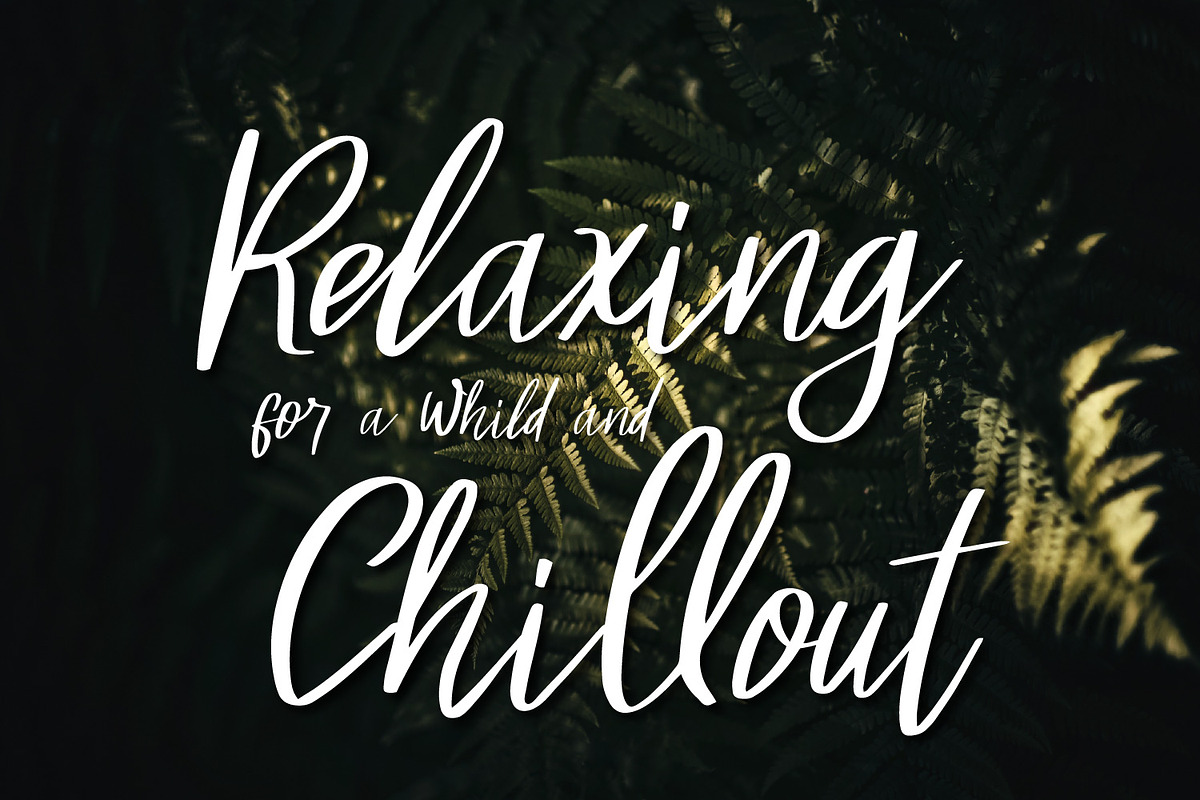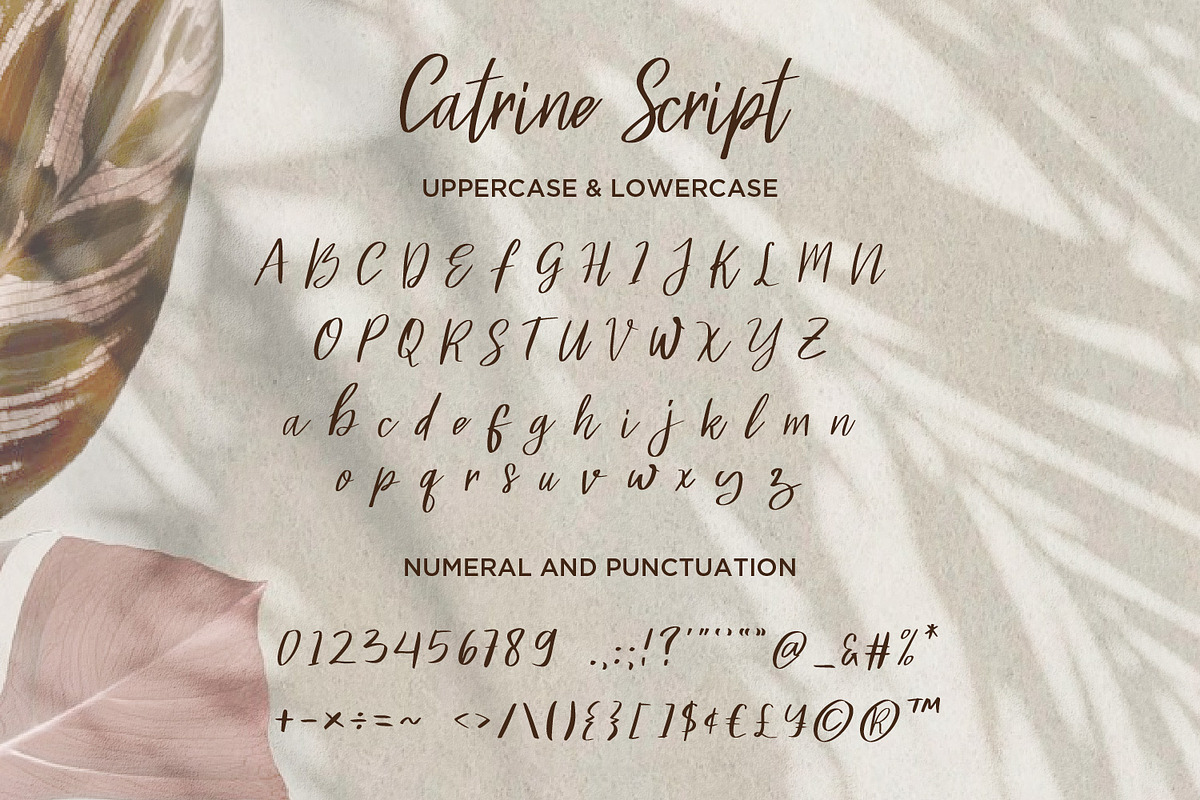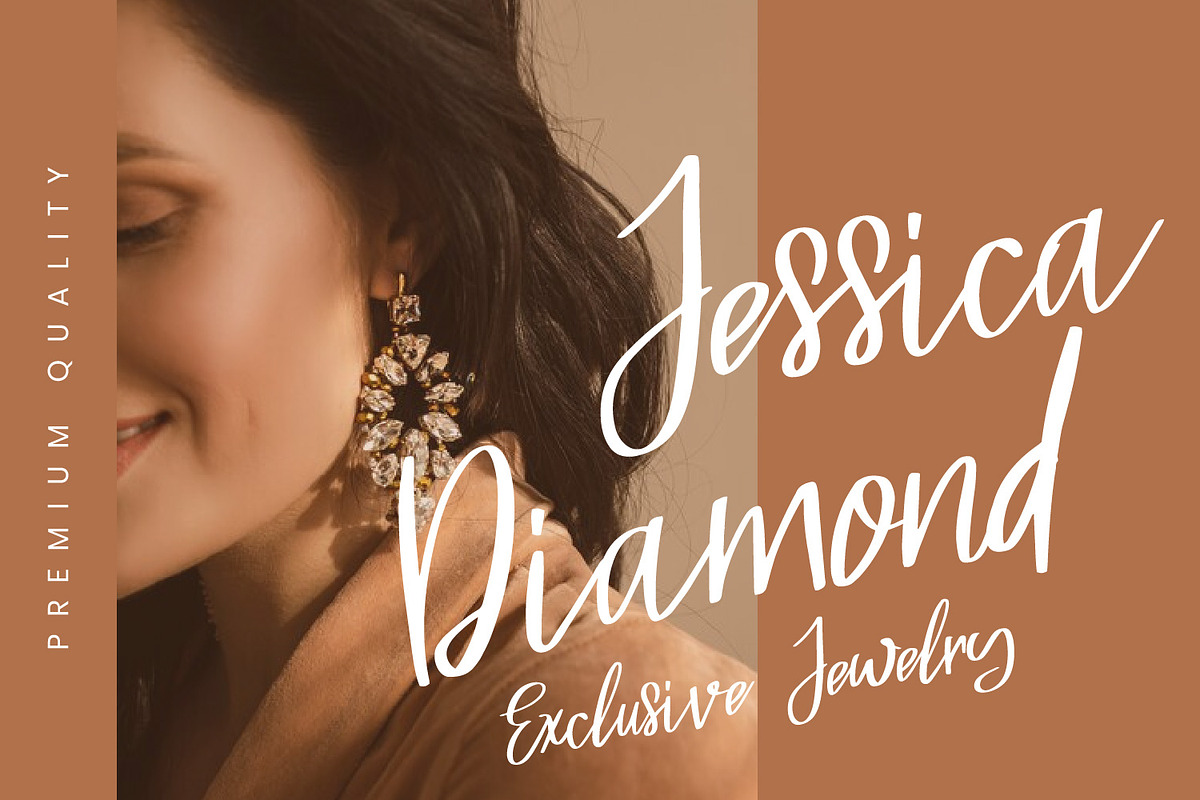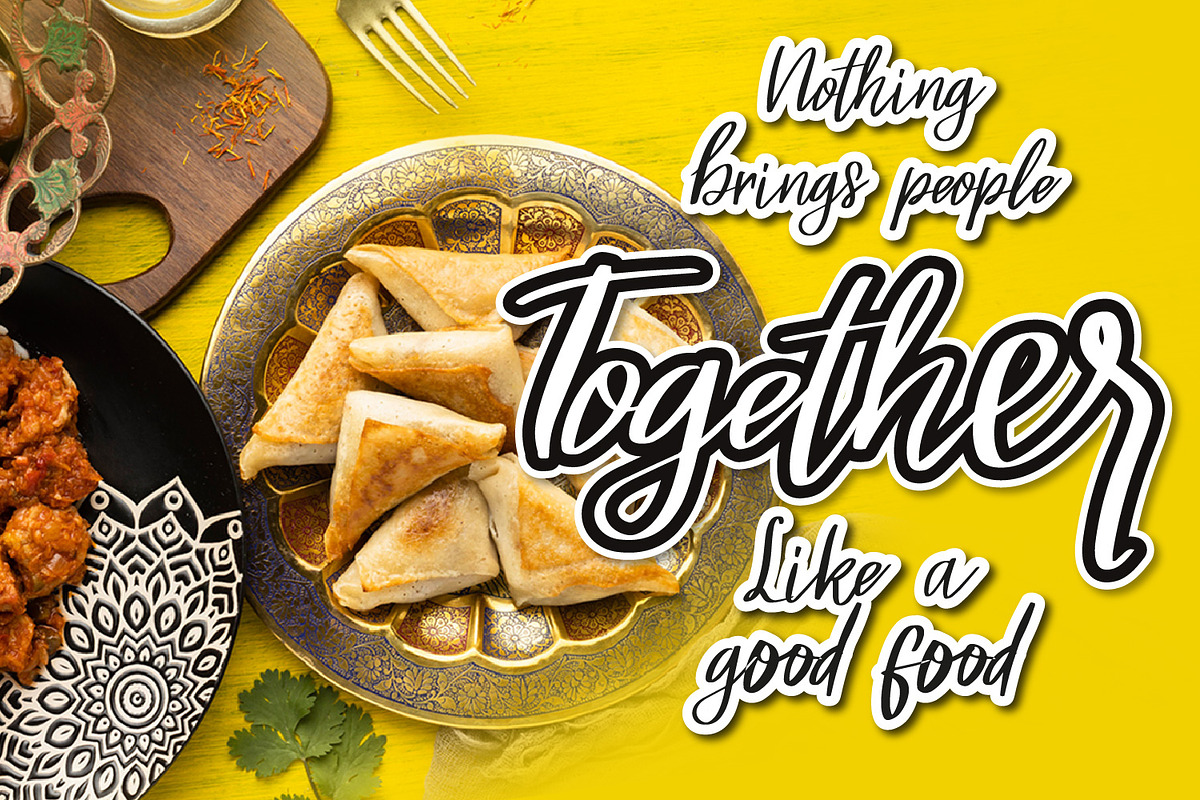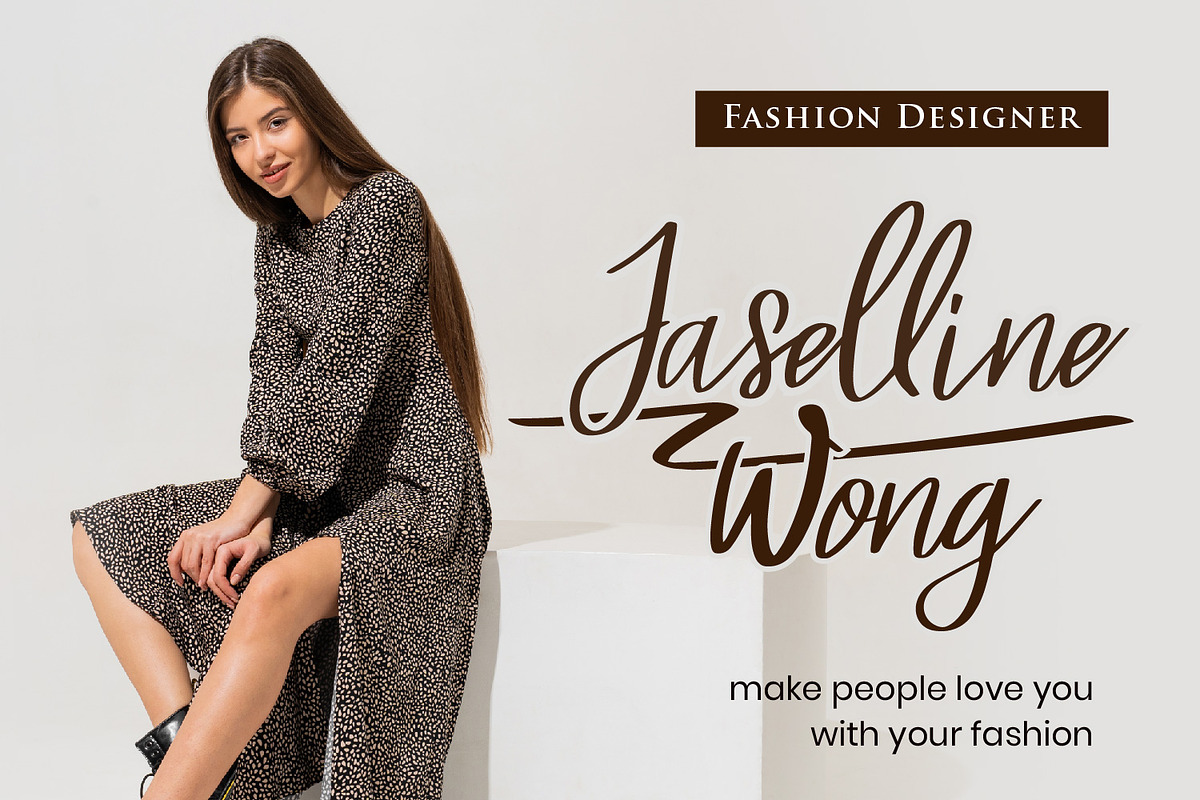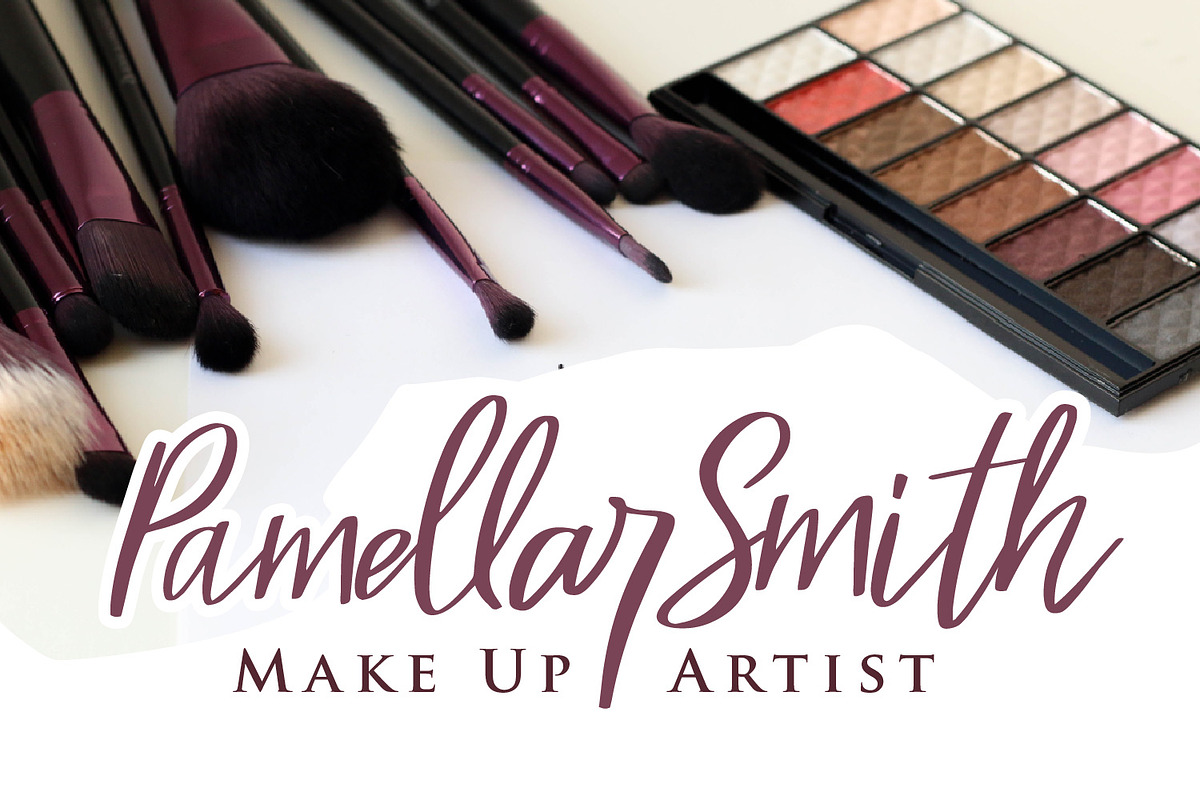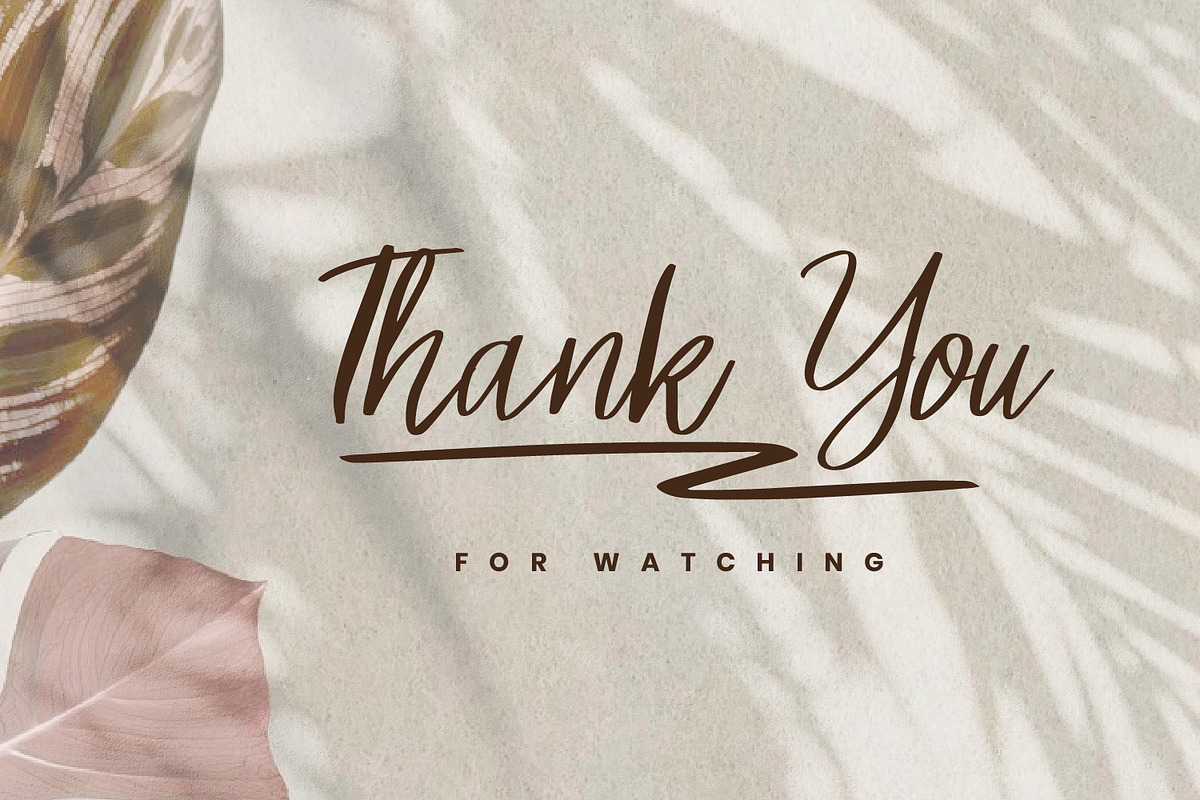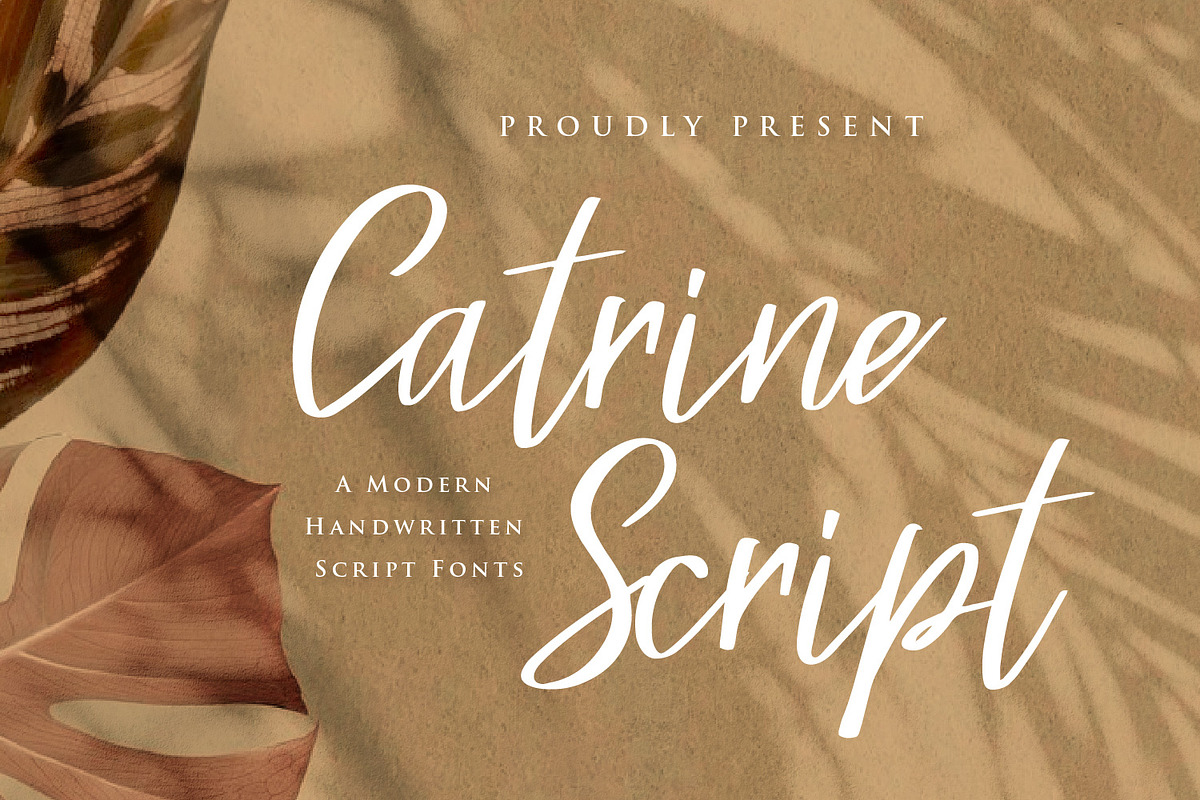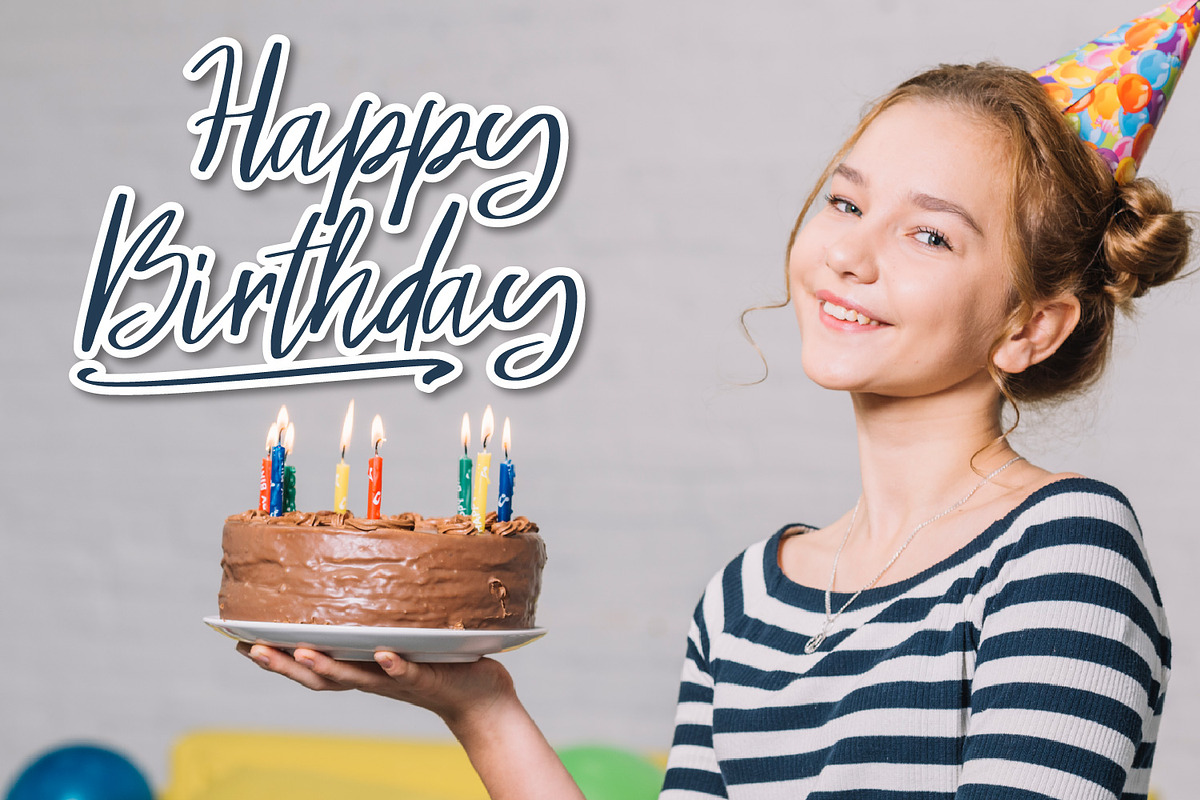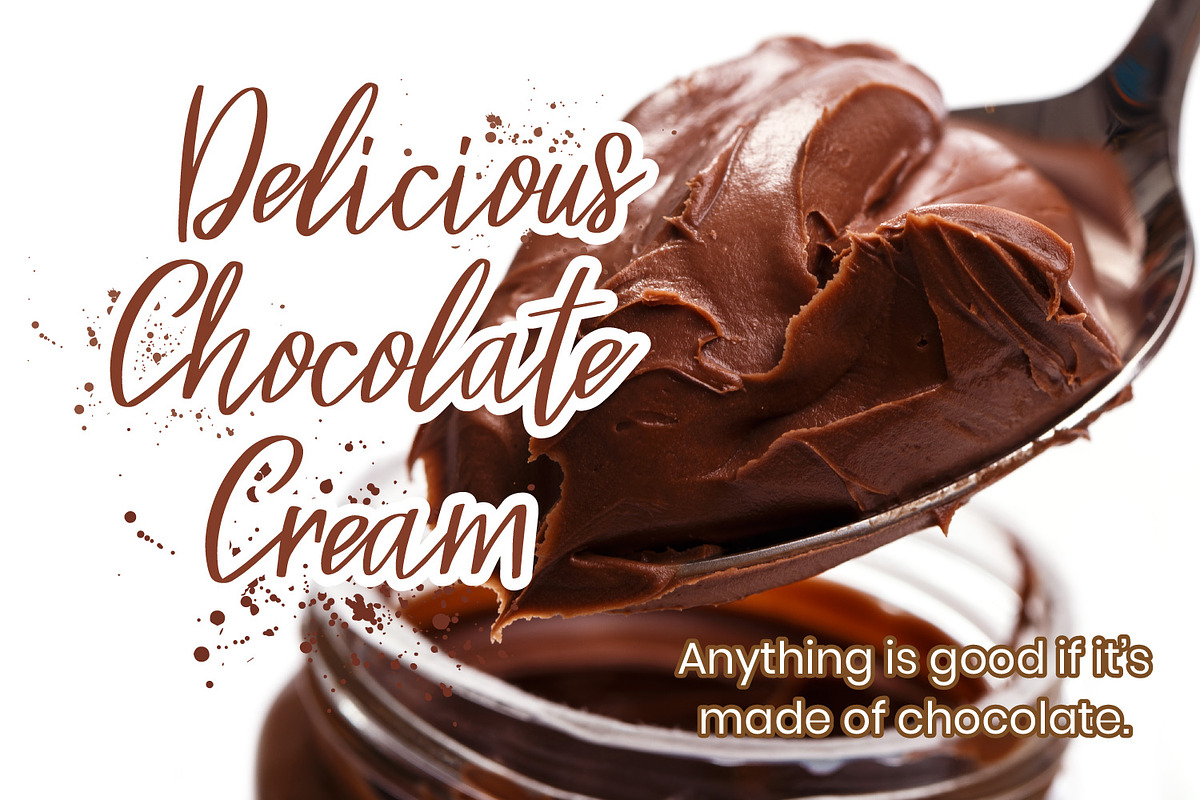
Catrine Script - Handwritten Script
Catrine Script - Handwritten Script fonts
Catrine Script is a Handwritten Script font, will be suitable for any projects such as branding, promotional ads, quotes design, merchandise, social media and much more. make your work or your business to high level!!! special events, and all your other lovely projects that need beautiful handwriting taste.